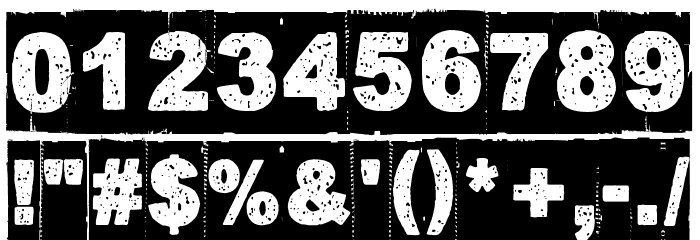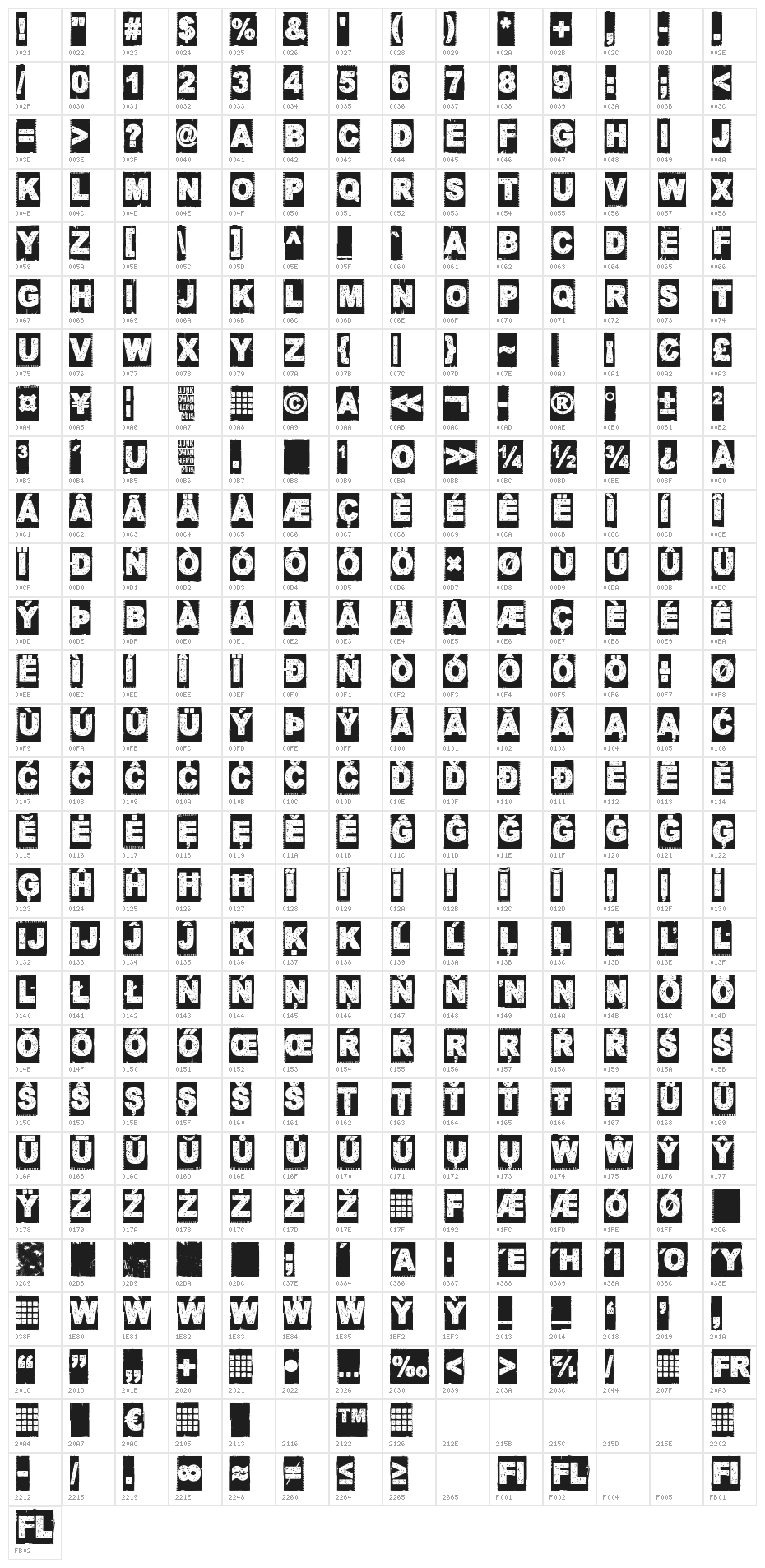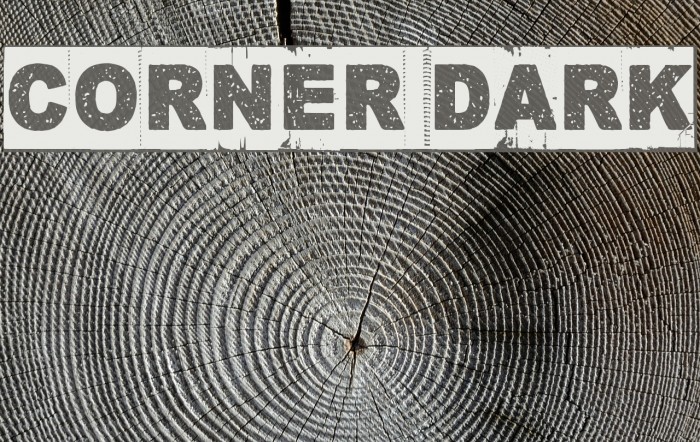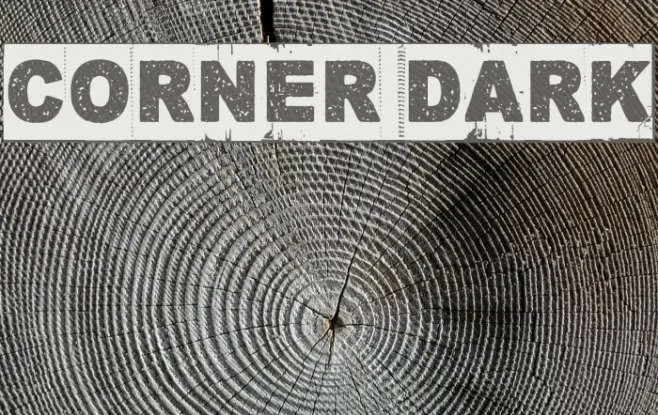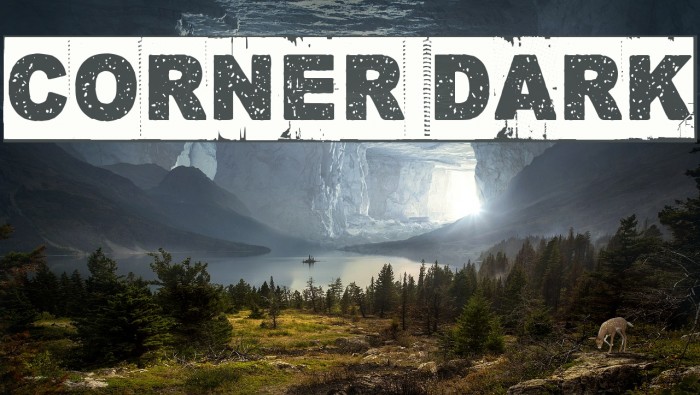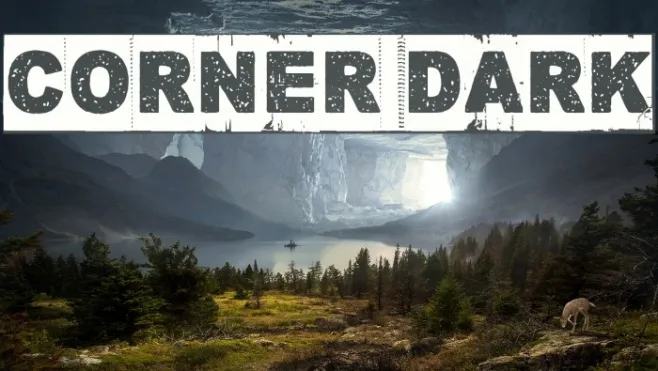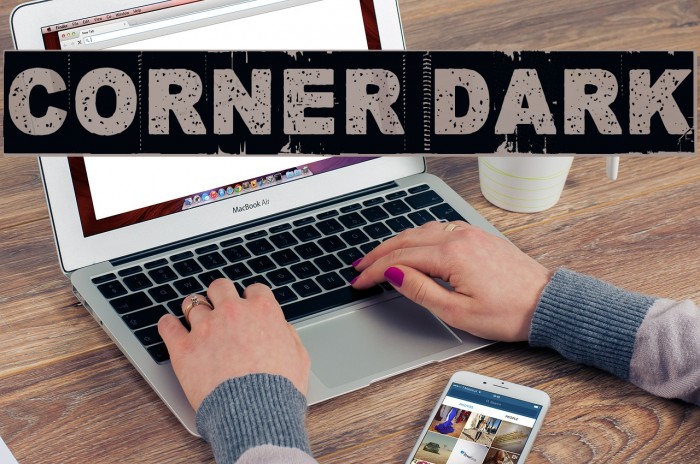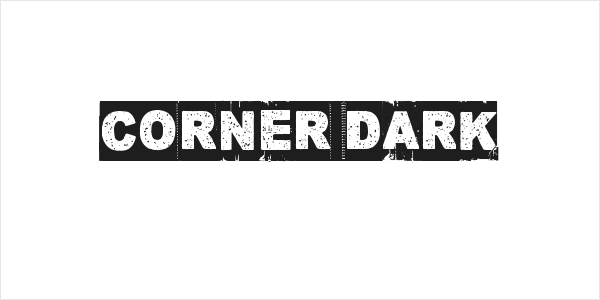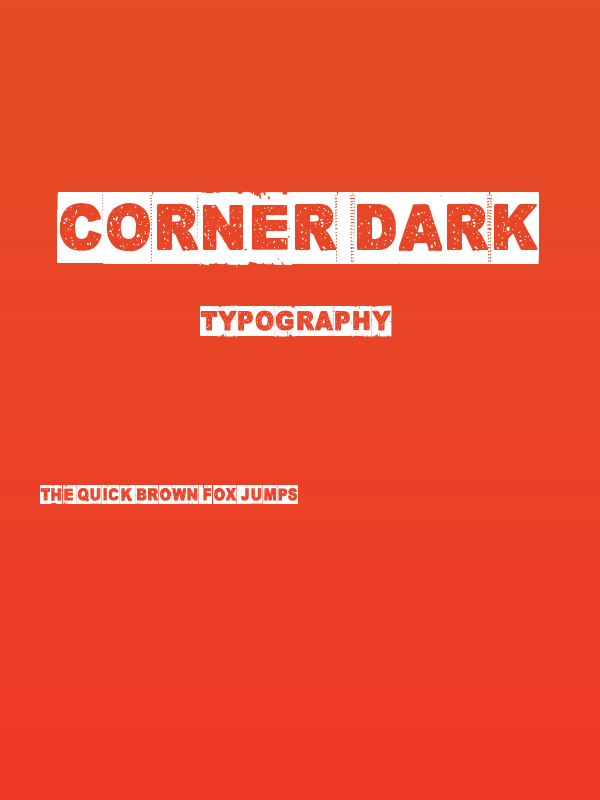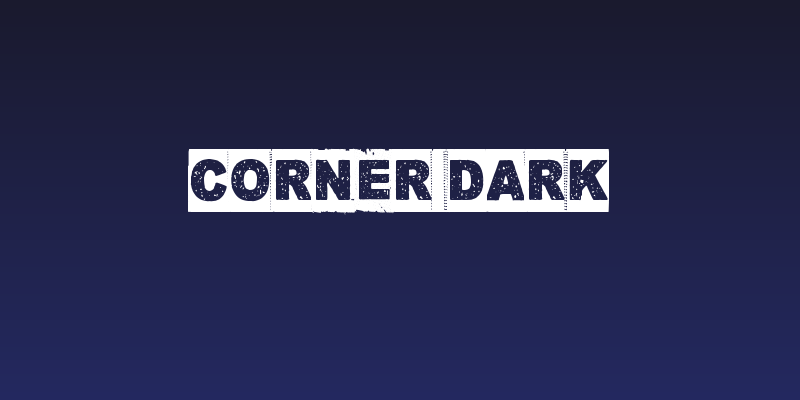
Corner Dark Font
Corner Dark Description
This font exhibits a bold and distressed style, with a textured appearance that gives it a rugged and vintage feel. The characters are blocky and robust, with a consistent width that maintains a strong presence. The distressed texture adds an element of grunge, making it suitable for designs that require a raw and edgy aesthetic. The uppercase letters are prominent, and the numbers and special characters follow the same bold and textured style, ensuring uniformity across all elements.
| Proposed Projects | Ideal for posters, album covers, branding for edgy products, or any design needing a vintage or grunge look. |